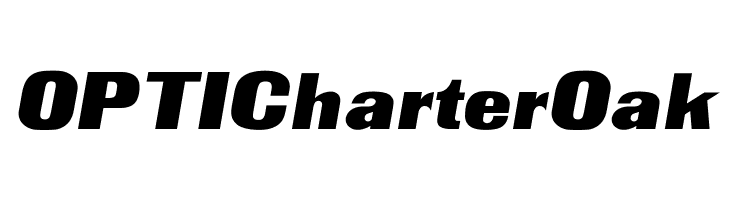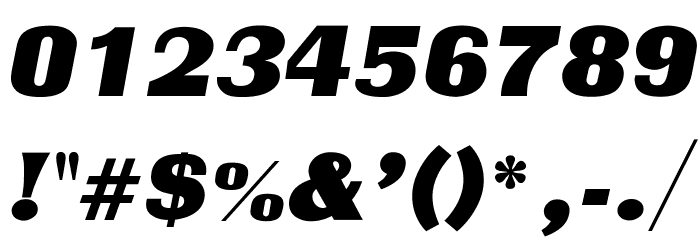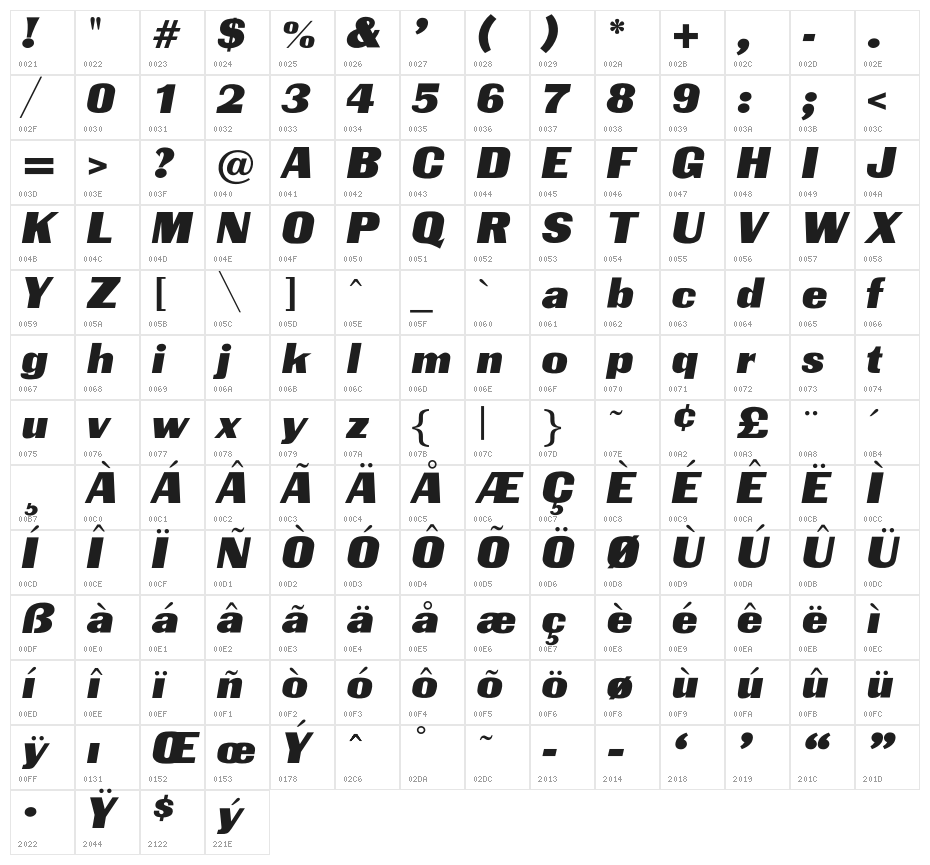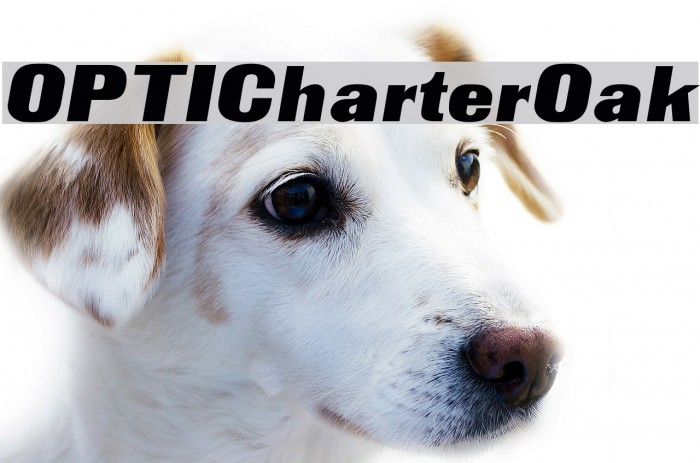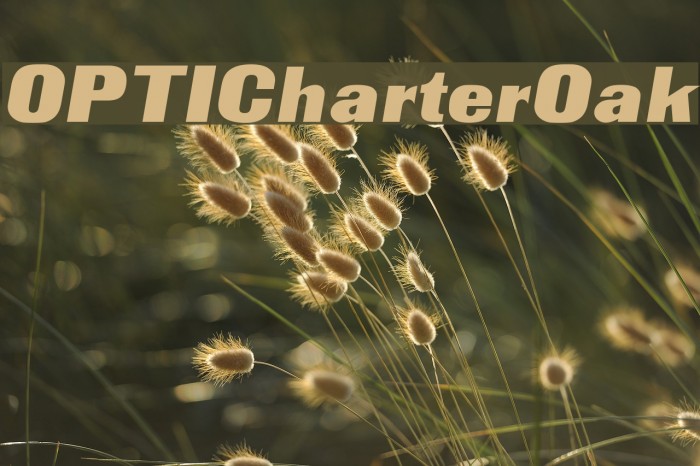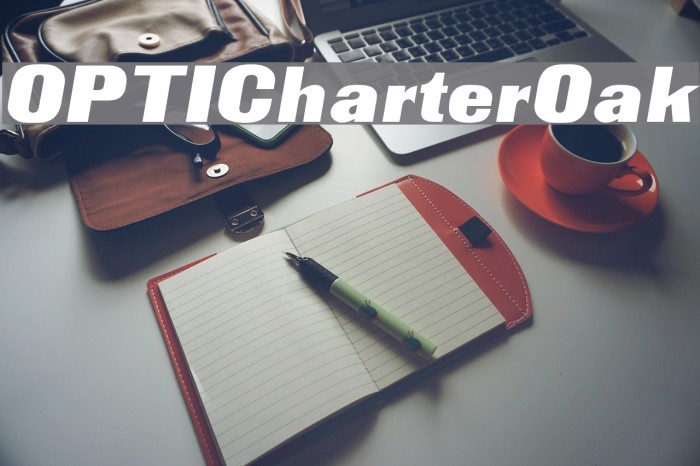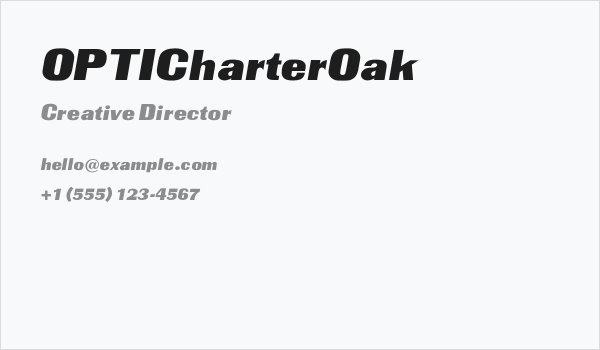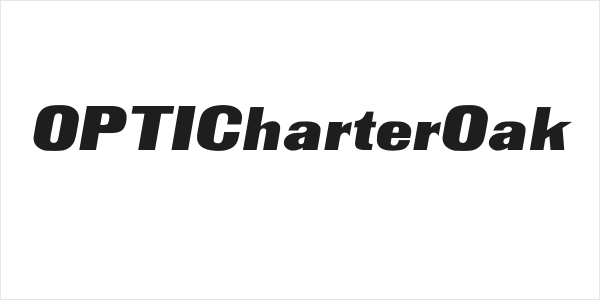
OPTICharterOak Font
OPTICharterOak Description
This font exhibits a bold and dynamic style with a strong presence. The characters are slightly italicized, giving them a forward-leaning appearance that suggests movement and energy. The uppercase letters are robust and commanding, while the lowercase letters maintain a consistent weight and style. The numerals are clear and bold, ensuring readability. Special characters are well-defined and integrate seamlessly with the overall design. The font's thick strokes and minimal contrast between thick and thin lines contribute to its impactful and assertive look.
| Use Case | Headlines, Logos, Advertising |
| Proposed Projects | Ideal for sports branding, dynamic advertising, headlines, and any project requiring a strong, energetic typeface. |